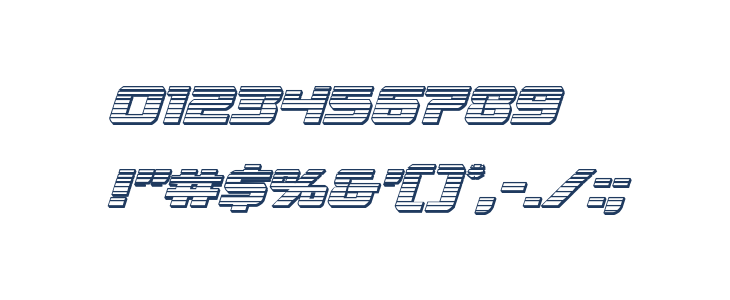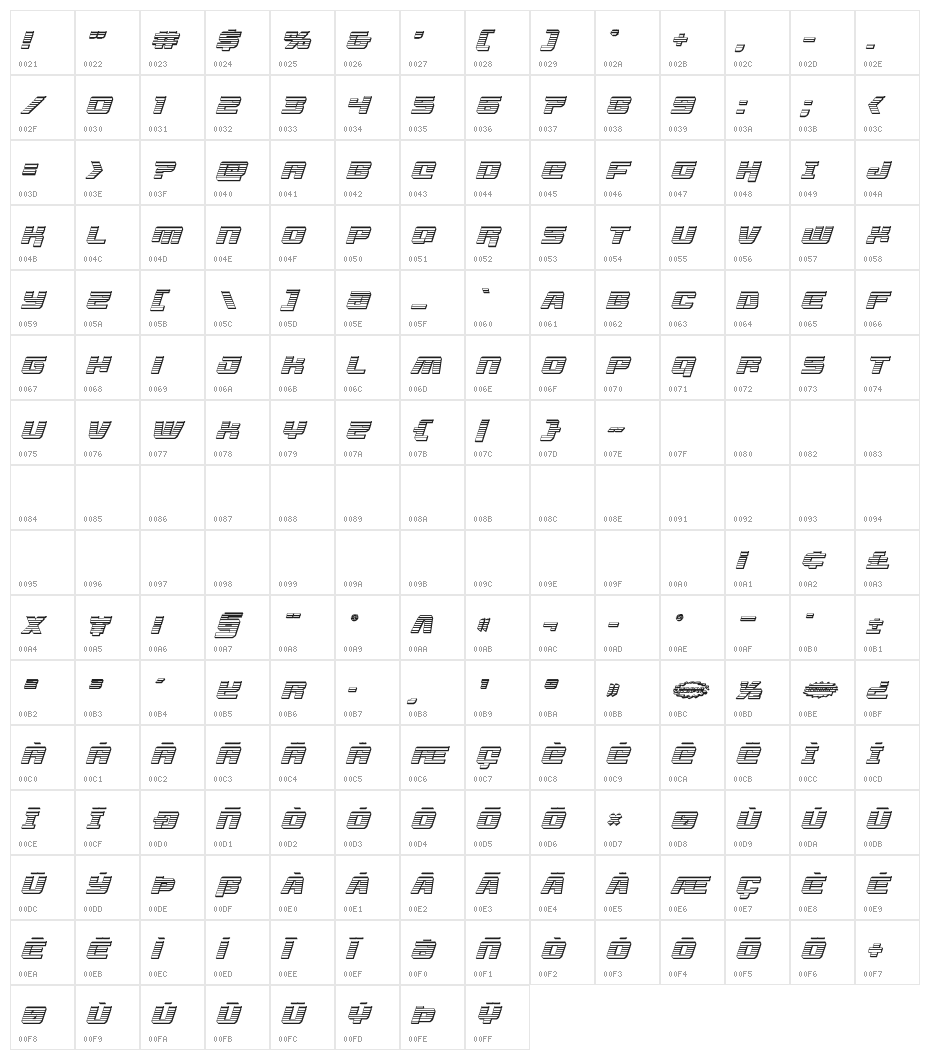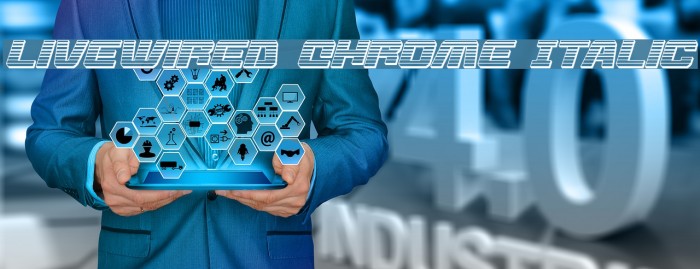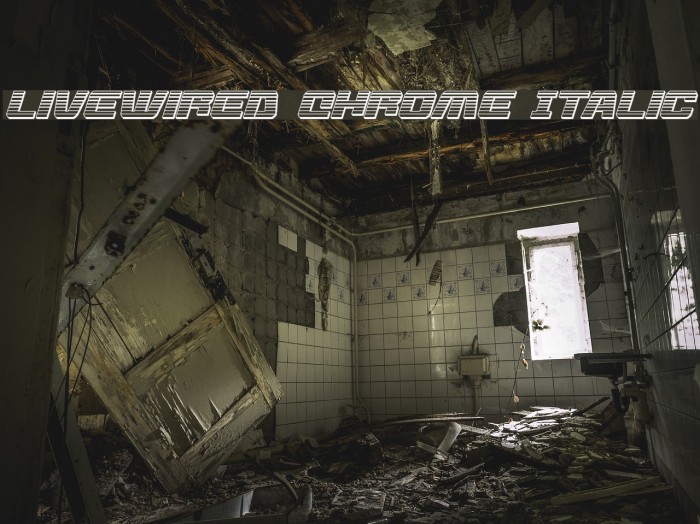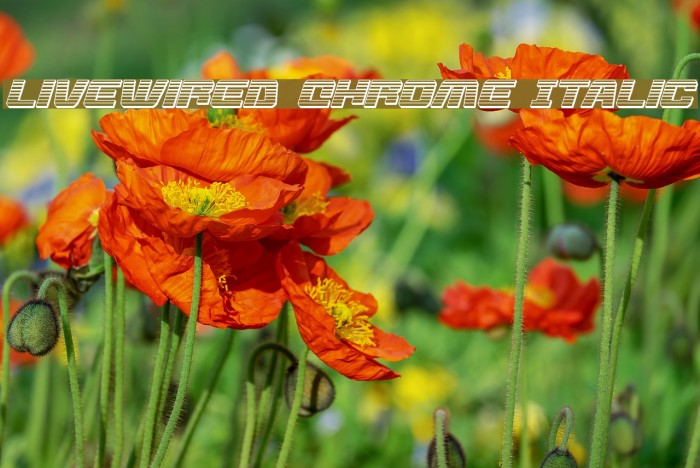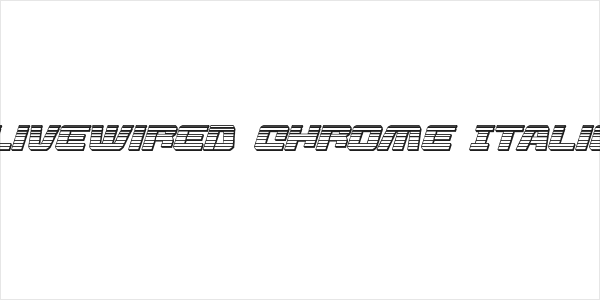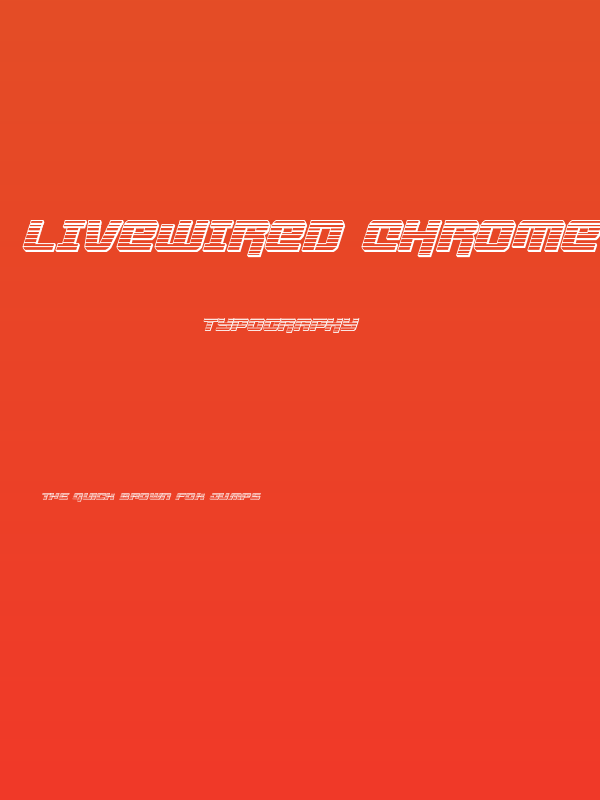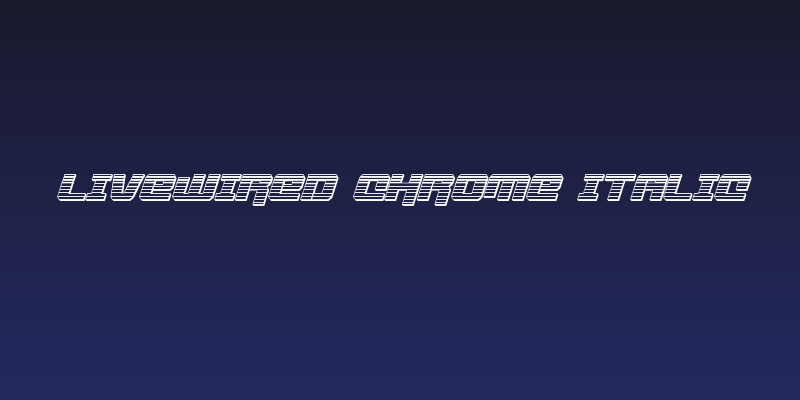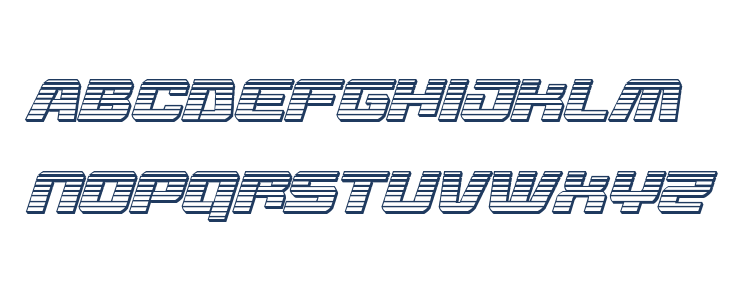
Livewired Chrome Italic Font
Livewired Chrome Italic Description
This font features a bold, futuristic design with a distinct striped pattern running horizontally across each character. The letters are italicized, giving a sense of motion and speed. The geometric shapes and clean lines create a modern and dynamic appearance, making it stand out in any design. The uppercase and lowercase letters maintain a consistent style, while the numbers and special characters are equally bold and striking. The font's unique style is ideal for projects that require a contemporary and eye-catching look.
Proposed ProjectsIdeal for technology branding, sci-fi themed posters, video game titles, and modern advertising campaigns.